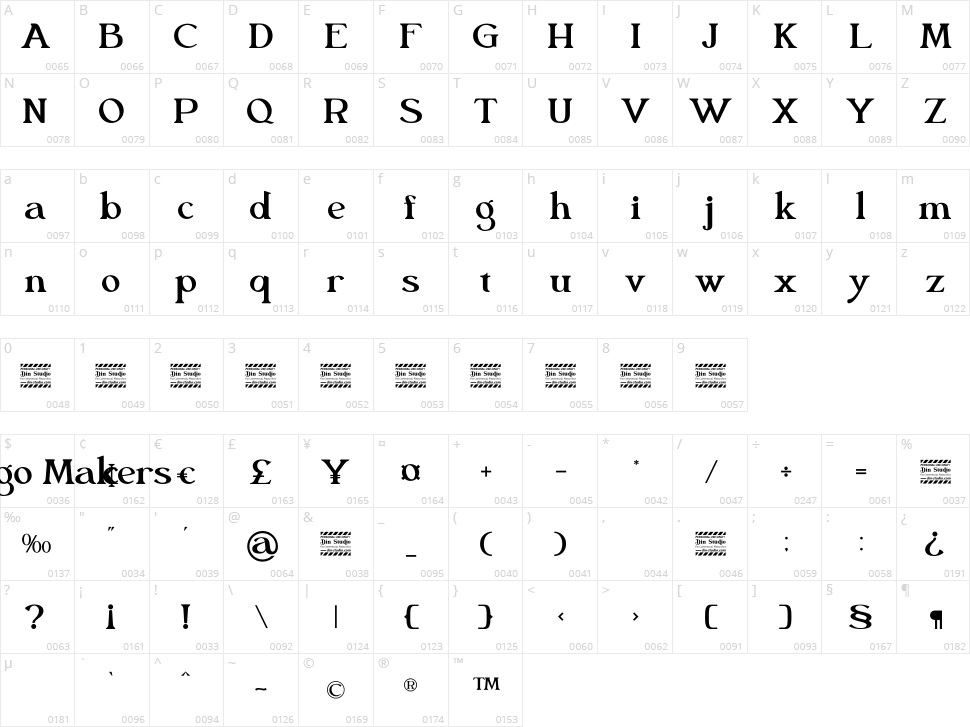
Chicago Makers
Introducing Chicago Makers- A Serif Font Family
With only one package you will get many options to bring out engaging content. Chicago Makes is made to show a modern and stylish view to what you make. It fits right in with your designs or projecta, whatever it is! This font is perfect for headings, logos, business cards, printed quotes, cards, packaging, website or social media branding, and many more!
Introducing Chicago Makers- A Serif Font Family
With only one package you will get many options to bring out engaging content. Chicago Makes is made to show a modern and stylish view to what you make. It fits right in with your designs or projecta, whatever it is! This font is perfect for headings, logos, business cards, printed quotes, cards, packaging, website or social media branding, and many more!